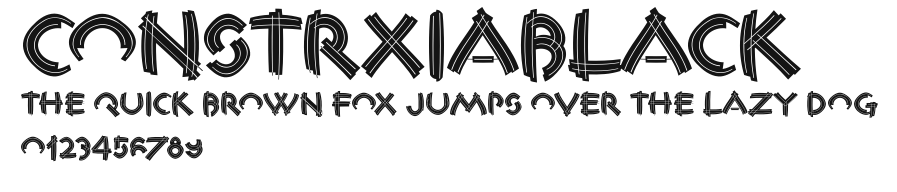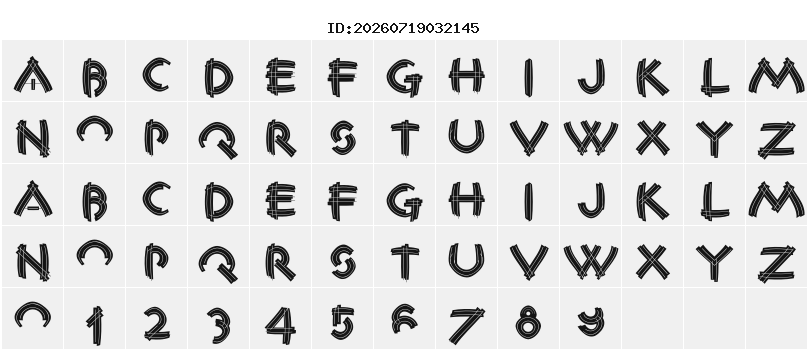
ConstrxiaBlack Preview
• Font Name: ConstrxiaBlack
• Font ID: ConstrxiaBlack
• Full Font Name: ConstrxiaBlack
• Version: 1.0 2003-07-05
• PostScript Name: ConstrxiaBlack
• Character Count: 230
About ConstrxiaBlack.ttf
ConstrxiaBlack.ttf is a modern, elegant sans-serif font designed for ultimate readability and visual harmony. Perfect for branding, headlines, web design, and print materials.